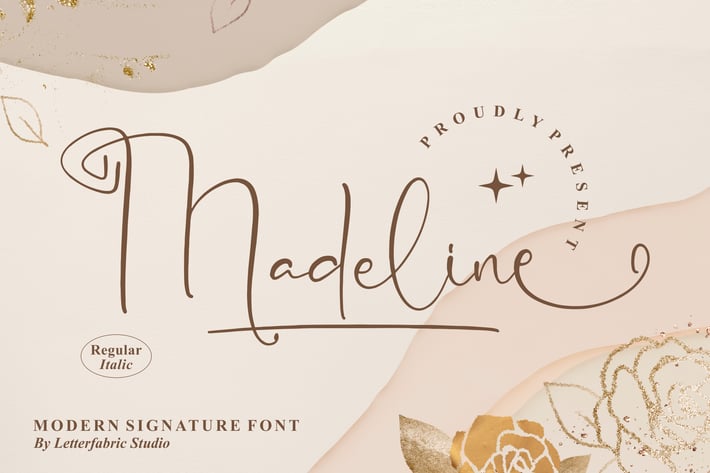
Madeline Modern Signature Font
Madeline is an elegant and modern signature font that captures the essence of sophistication and natural flow. With its fine lines, graceful loops, and luxurious aesthetic, this font is perfect for projects that demand a personal yet polished touch.
Stylish handwritten signature style
Includes Regular and Italic versions
Smooth curves and refined strokes for timeless appeal
Ideal for print, digital, and branding applications
Wedding stationery and invitations
Luxury branding and fashion editorials
Photography watermarks and signature logos
Elegant social media templates
* Product packaging and personalized gifts
Where elegance meets simplicity — Madeline gives your design a signature of timeless beauty.